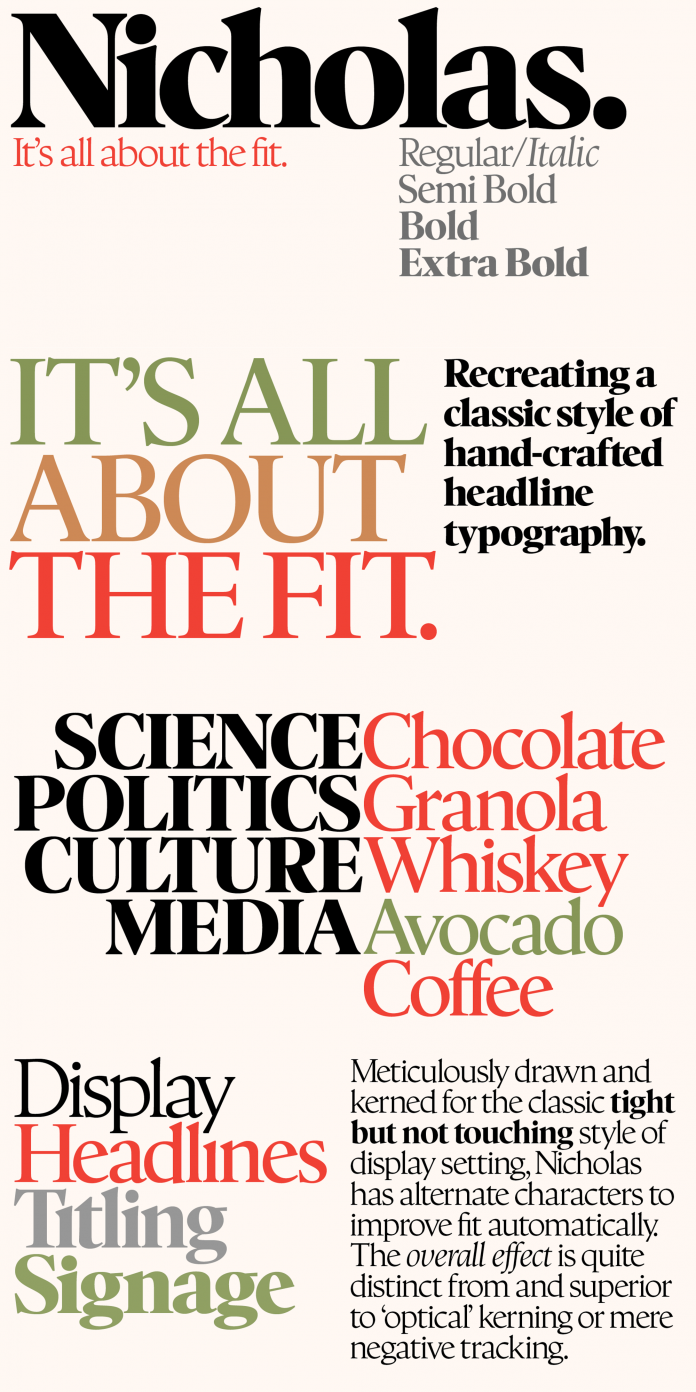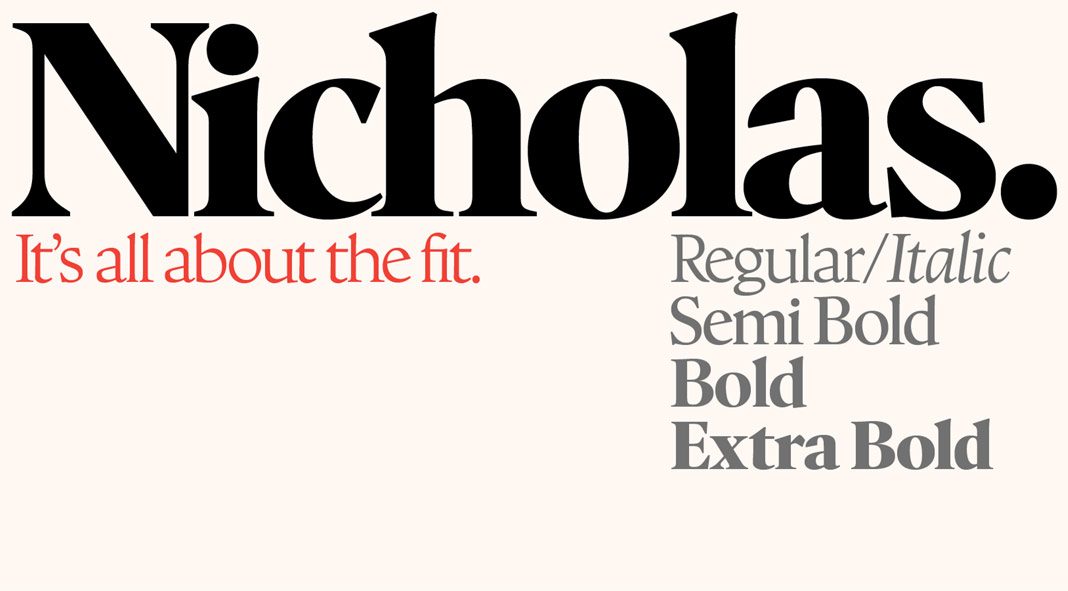
Nicholas, a meticulously drawn and kerned font family from foundry Shinntype.
Designed by Nick Shinn, Nicholas is a display version of the Goodchild Pro font family. It comes with alternate characters that improve its fit automatically. The family consists of 5 weights plus matching Italics for the regular and the semi bold versions. Nick Shinn has created the typeface for striking typefaces that offer a classic typographic touch. It is available as both web and desktop font. To learn more, just click on the following links or have a look at the type samples below.